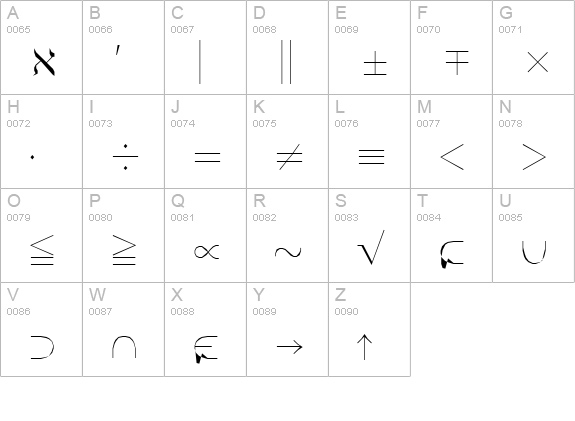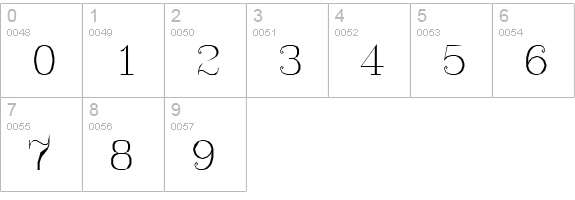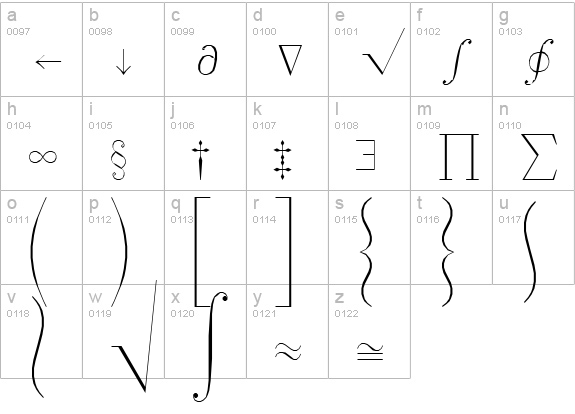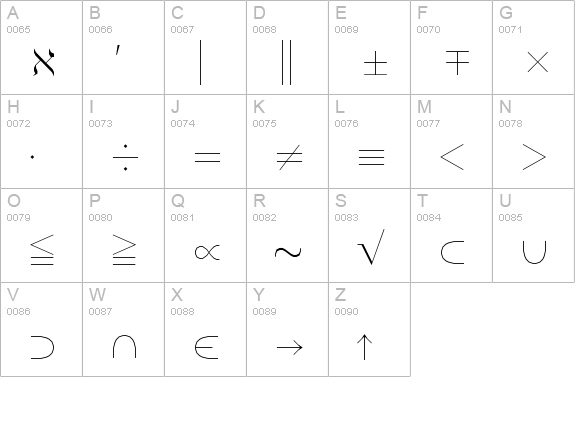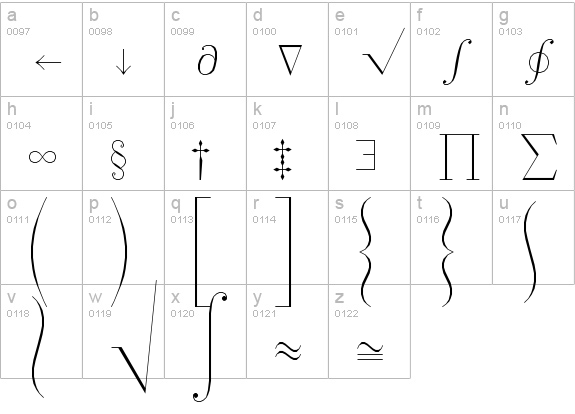
Symath Font Details
Symath font is a beautifully designed typeface that strikes the perfect balance between elegance and readability. With its clean lines and modern aesthetic, Symath is a versatile font that can be used for a wide range of design projects. Whether you're creating a sleek logo, designing a stylish website, or crafting an eye-catching poster, Symath is sure to elevate your work to the next level. What's even better is that Symath font is completely free to download at FontsMarket.com. This means you can easily add this stunning font to your collection without having to spend a dime. Don't miss out on this opportunity to enhance your designs with the sophisticated charm of Symath font. Download it now and let your creativity shine!